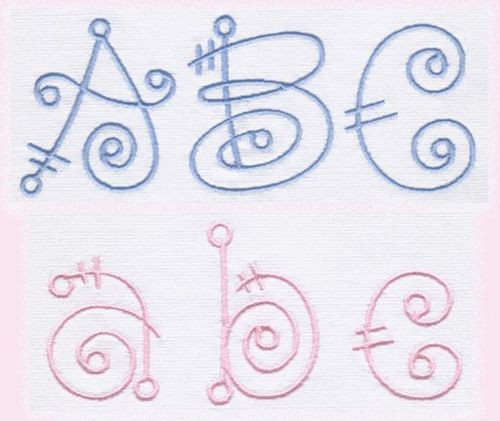
025 Fairytale SatinFill Font
Fairytale Monograming/Lettering Embroidery Design Set comes in 1.5", 2.25" and 3" tal letters and numbers. All are satin stitched and fit all 4x4 hoops.